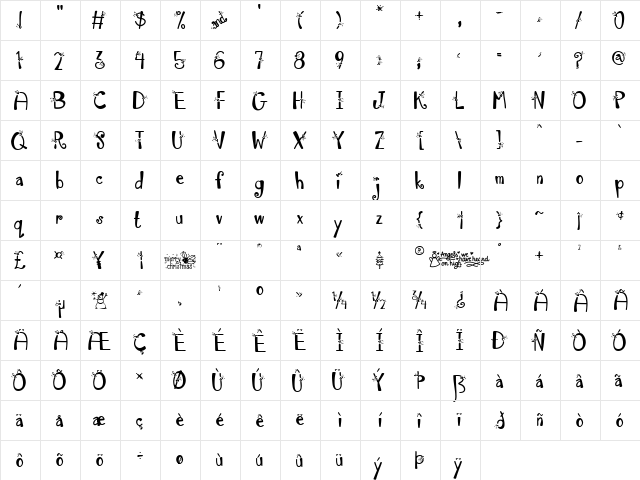
Austie Bost Happy Holly Regular
| Foundry | Austie Bost Fonts |
| Designer | Austin Owens |
Design Context for Austie Bost Happy Holly Typeface
Austie Bost Happy Holly is a composed and adaptable typeface that performs quietly and consistently across a wide range of design contexts.